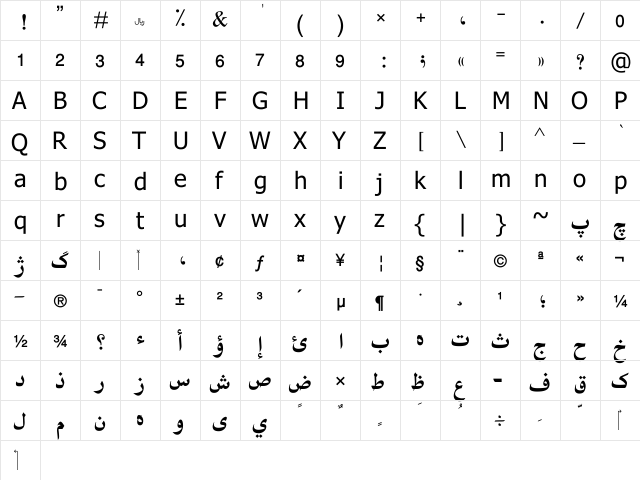
AGT Zarghona Mangal Regular
| Designer | Ahmad Gul Totakhyl |
Design Context for AGT Zarghona Mangal Typeface
AGT Zarghona Mangal takes a measured approach to typography — its balanced proportions and neutral character make it a reliable workhorse for both digital and print work.
First published in 2015, this typeface is available in OpenType (OTF) format.